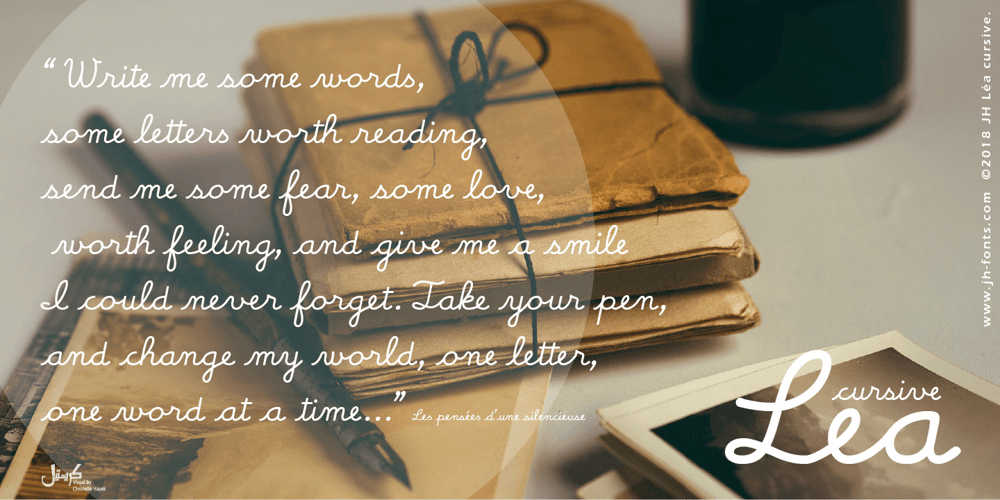
JH Lea Font Family was designed by Joe Hatem and published by JH Fonts. JH Lea contains 1 styles and family package options. JH Lea cursive is a school kids typeface; it is designed based on cursive handwriting , typical for children books, first hand calligraphy experience.